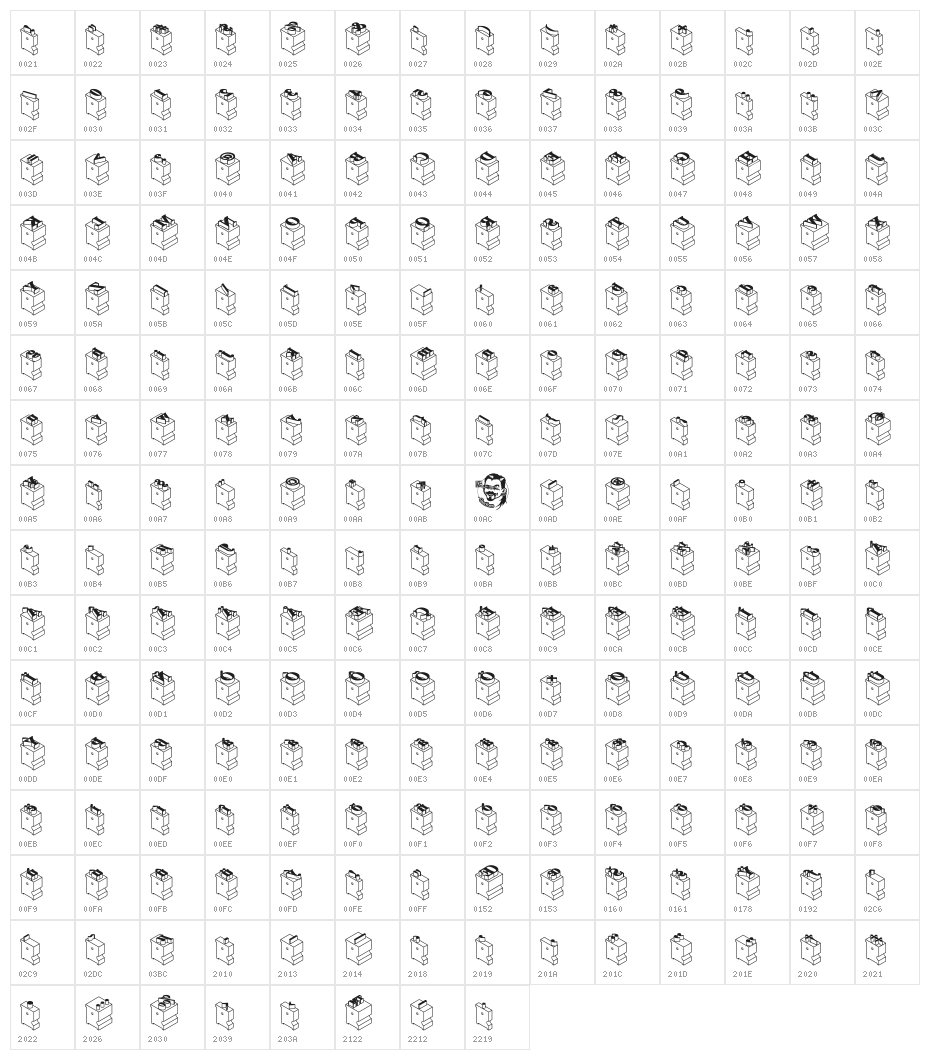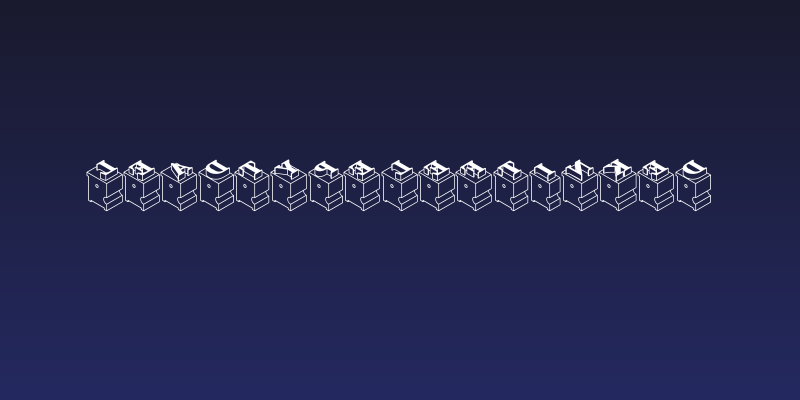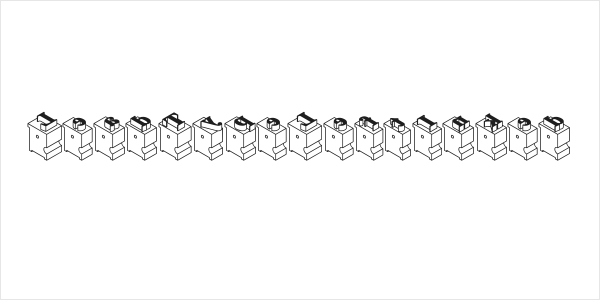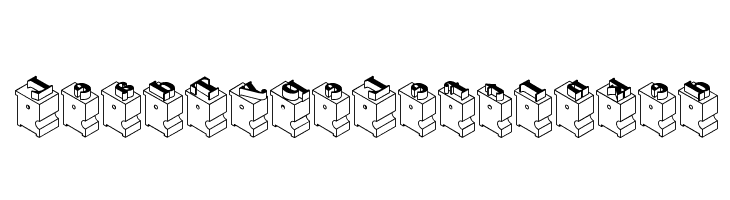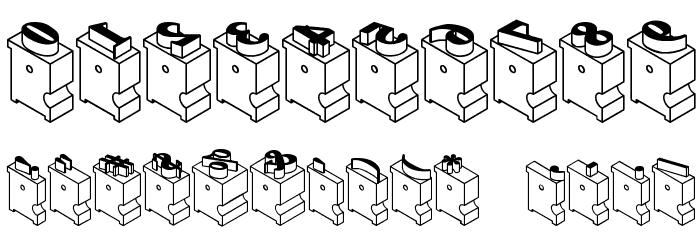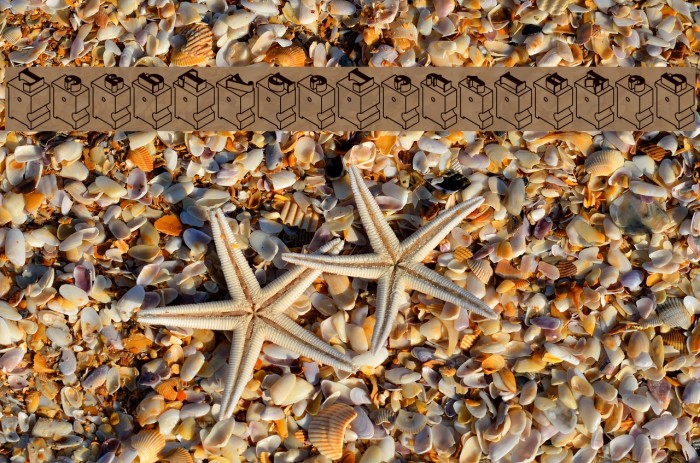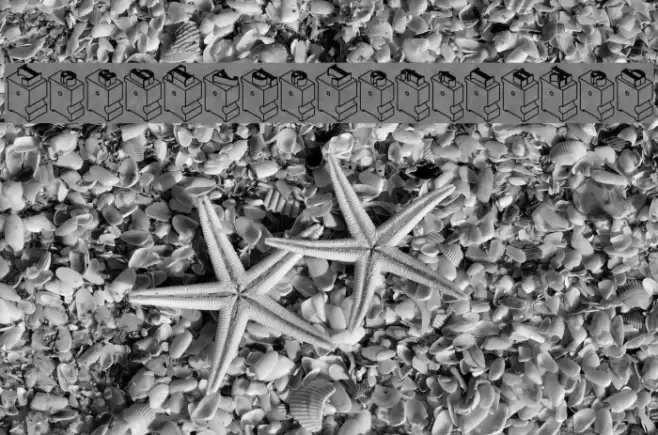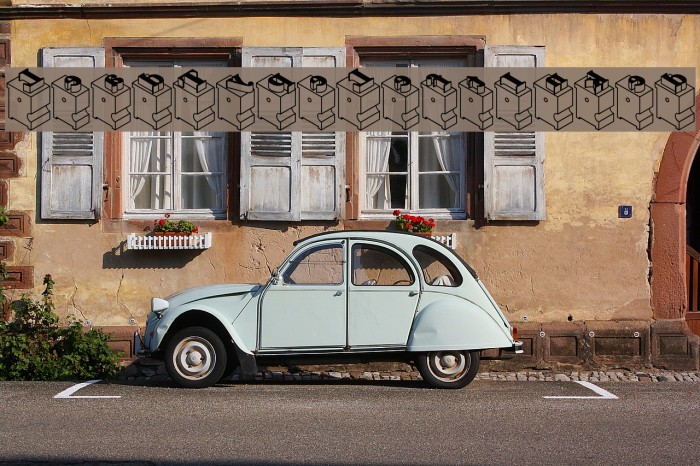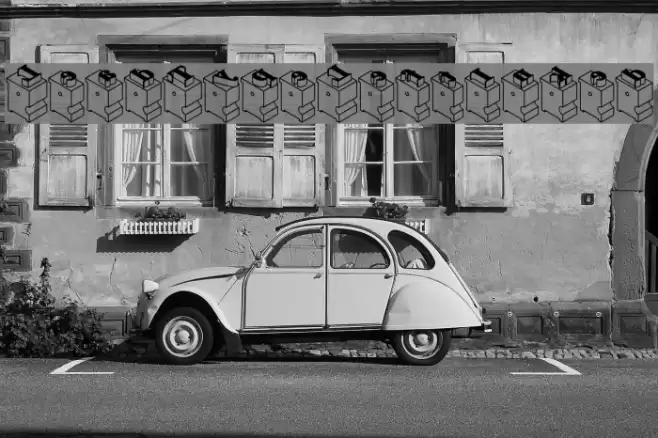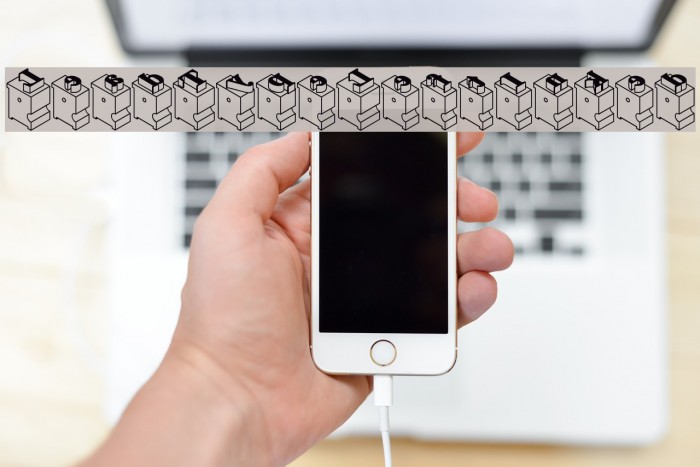
LeadTypeLeftInked Font
LeadTypeLeftInked Description
This font features a unique and bold design with a three-dimensional effect, resembling traditional lead type blocks. Each character is crafted with a distinct shadow and depth, giving it a tactile, embossed appearance. The uppercase and lowercase letters maintain a consistent style, with clean lines and a slightly rounded finish, adding a touch of modernity to the classic form. The numerals and special characters are equally well-designed, ensuring uniformity across all glyphs. This font's standout characteristic is its ability to convey a sense of craftsmanship and heritage, making it ideal for projects that require a vintage or artisanal touch.
| Overall Style | Vintage |
| Use Case | Logos, Headlines, Posters |
| Proposed Projects | Ideal for branding, packaging, posters, and any design that seeks to evoke a sense of tradition and craftsmanship. |